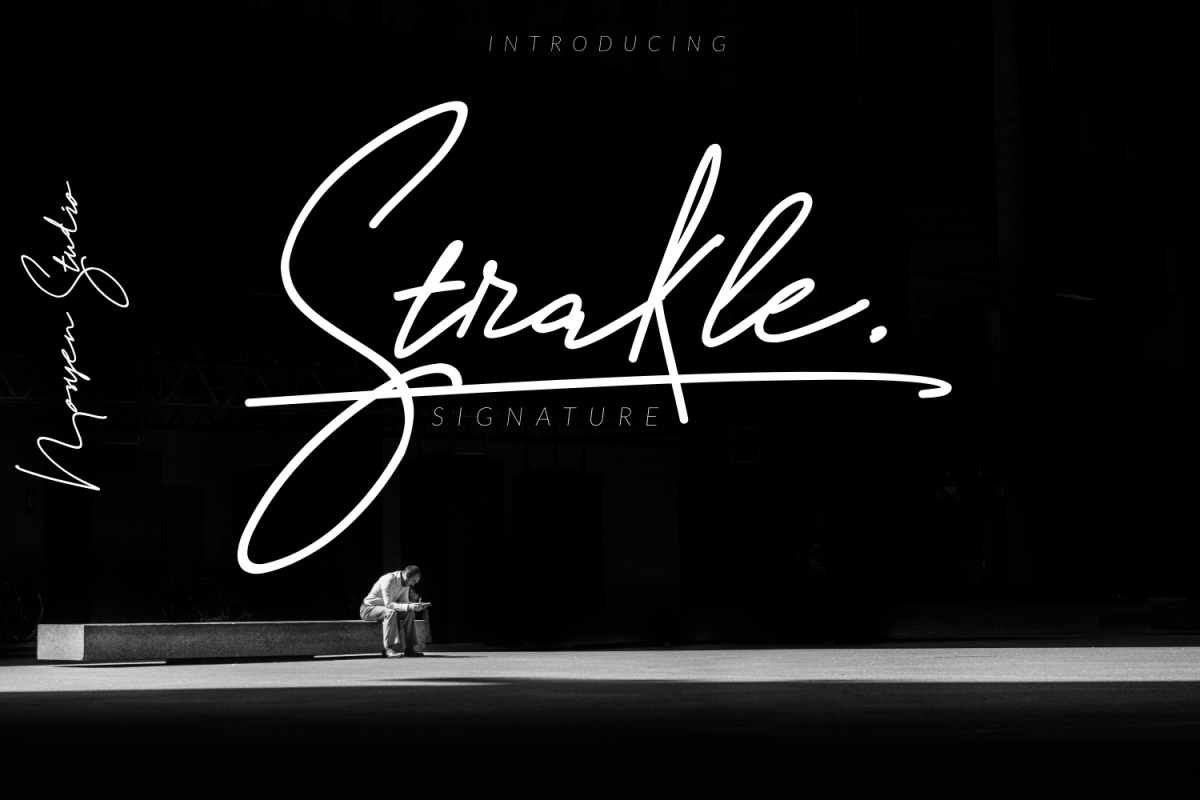
Strakle
Happily born son of the family Mozyen studio. he is the “Strakle” Signature Font. “Strakle” can accompany your design so that it looks attractive and extraordinary. “Strakle” Signature Font,  you can use in various designs such as weddings, beautiful words, t-shirt designs, business cards, company logos and promotions. Thank you for your interest in “Strakle” Signature Font. Include OTF and TTF. PUA Encoded.